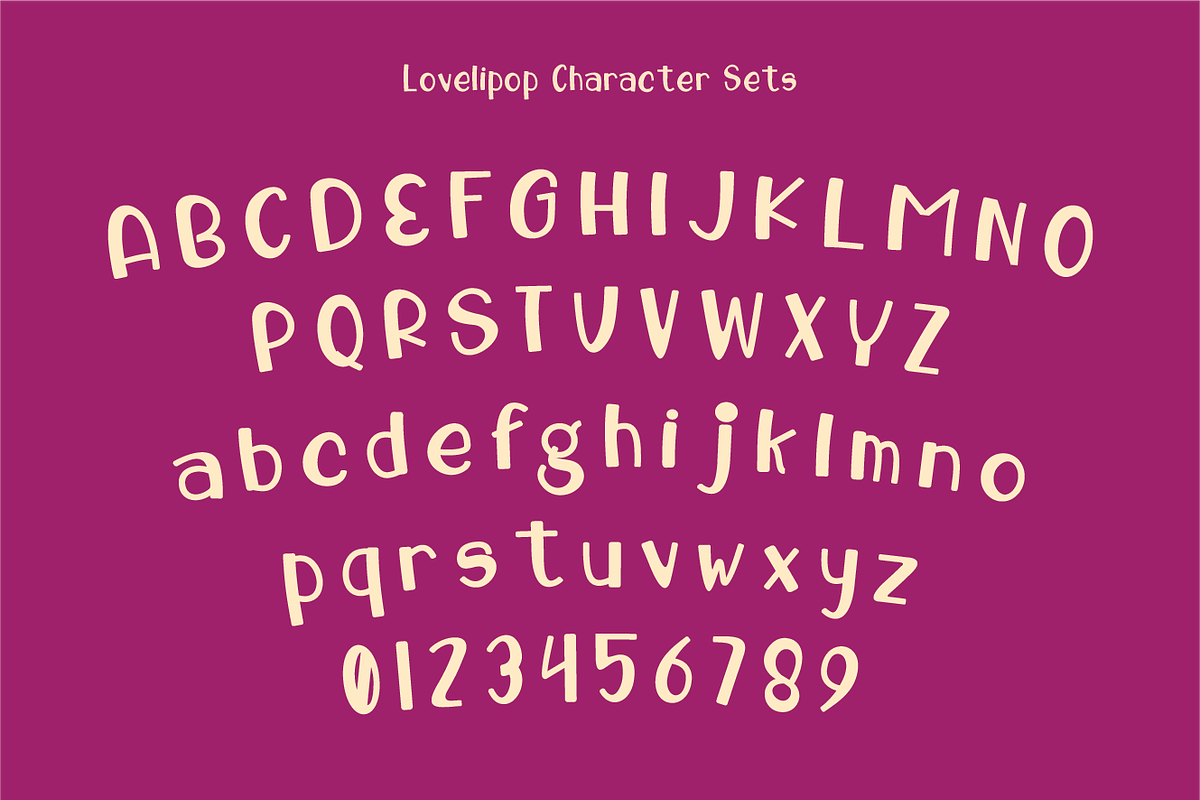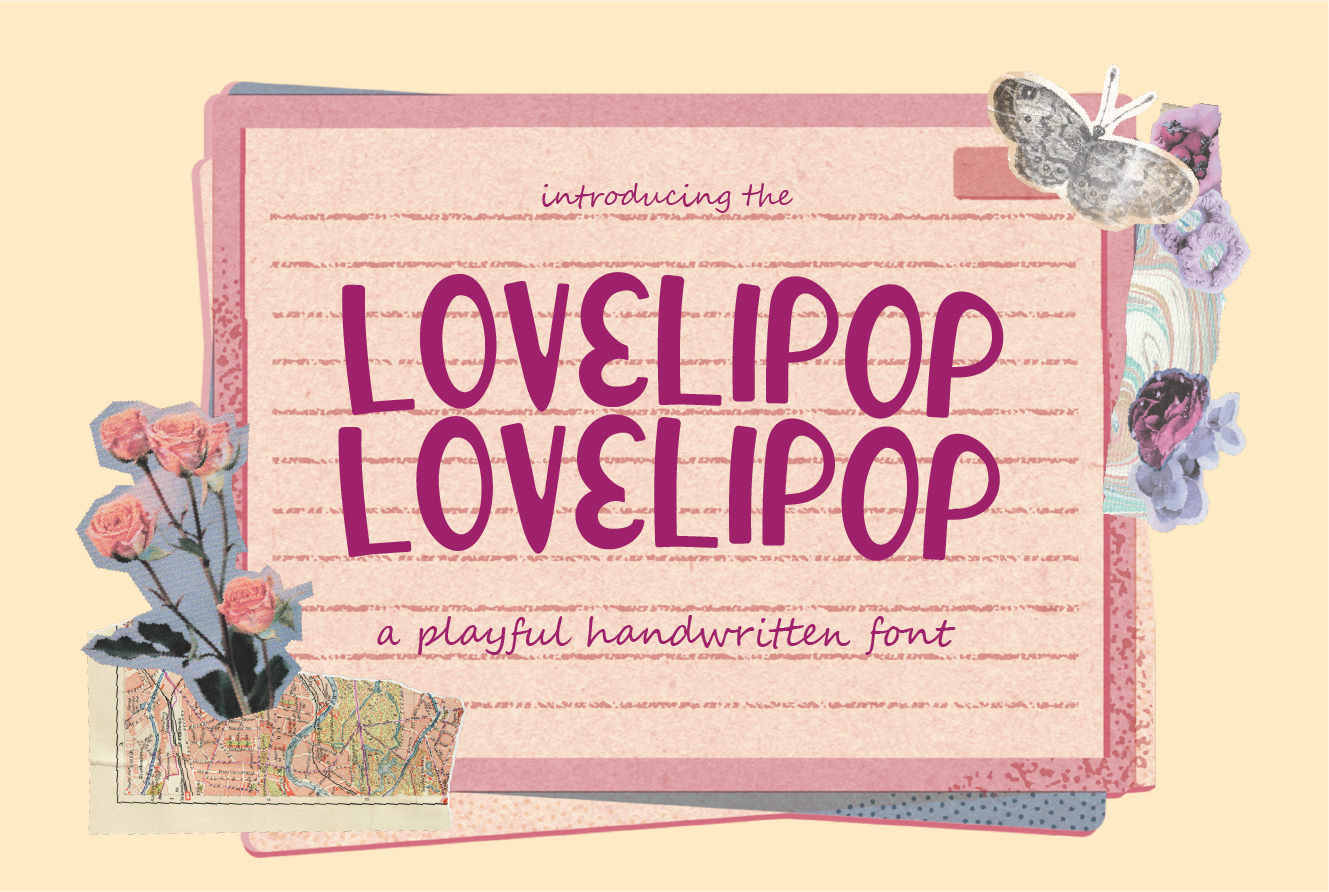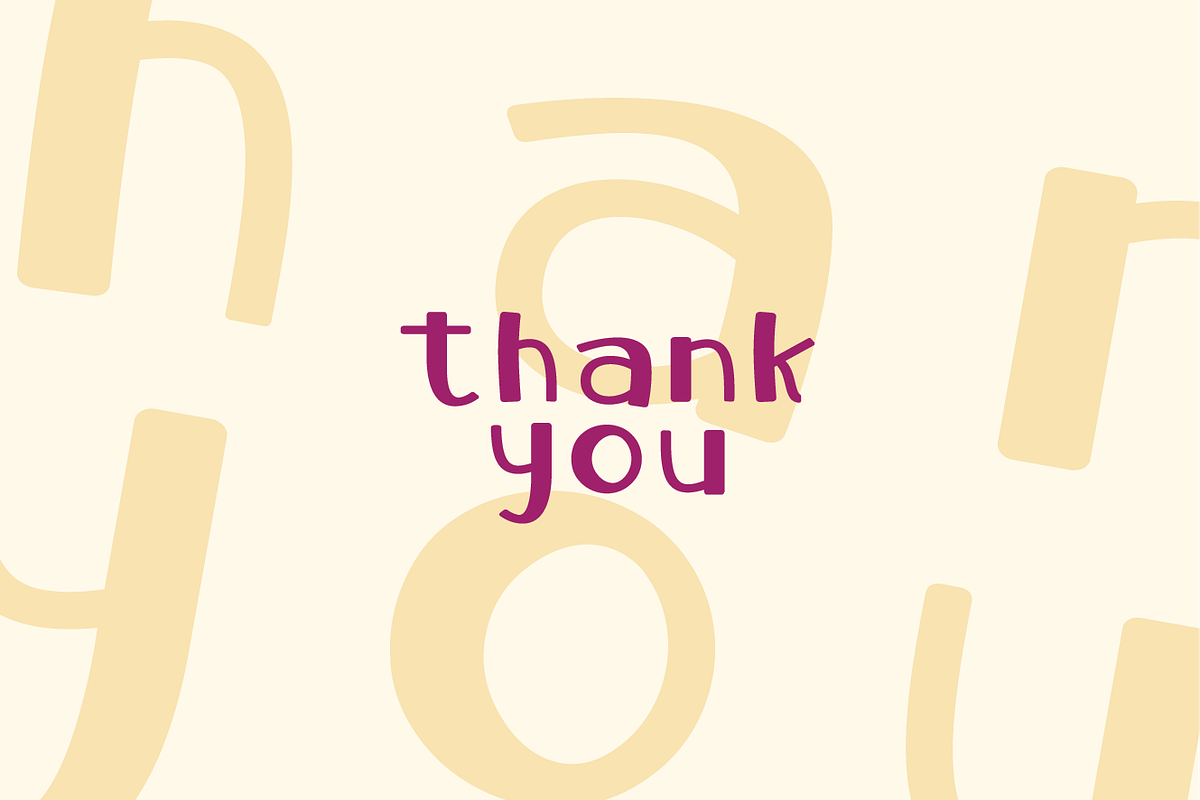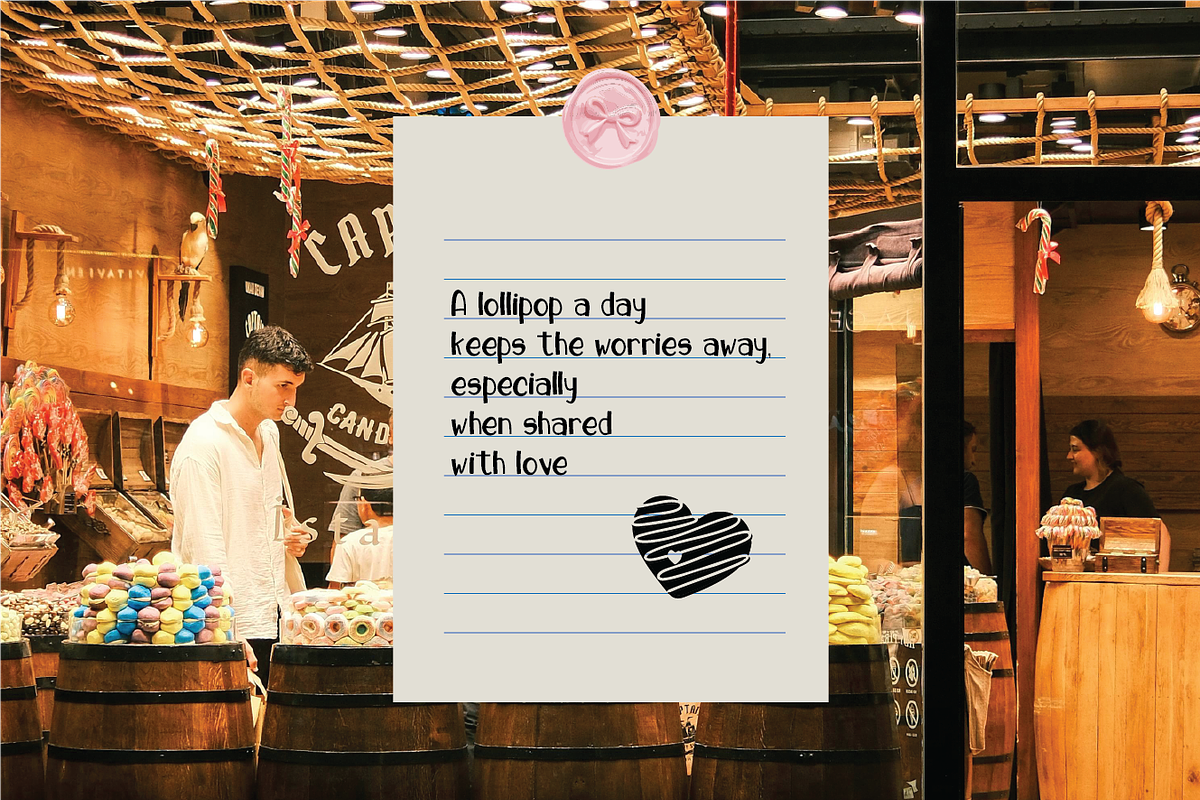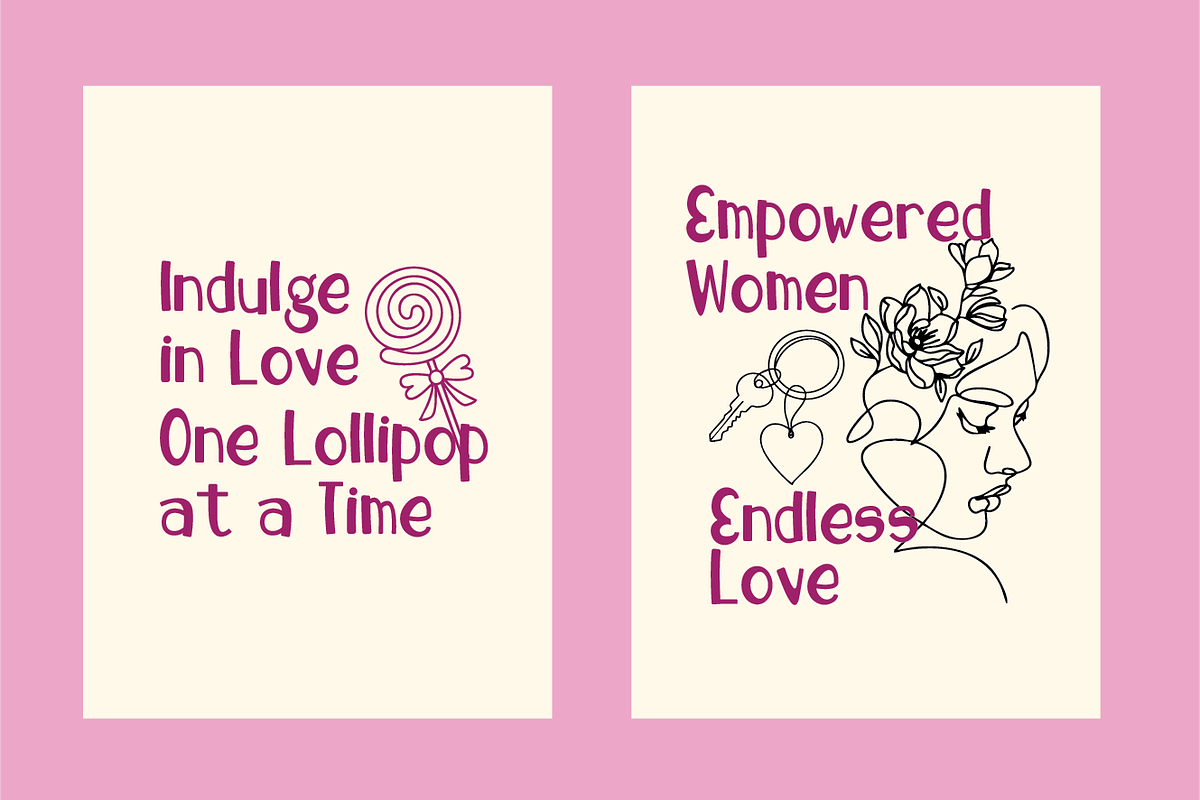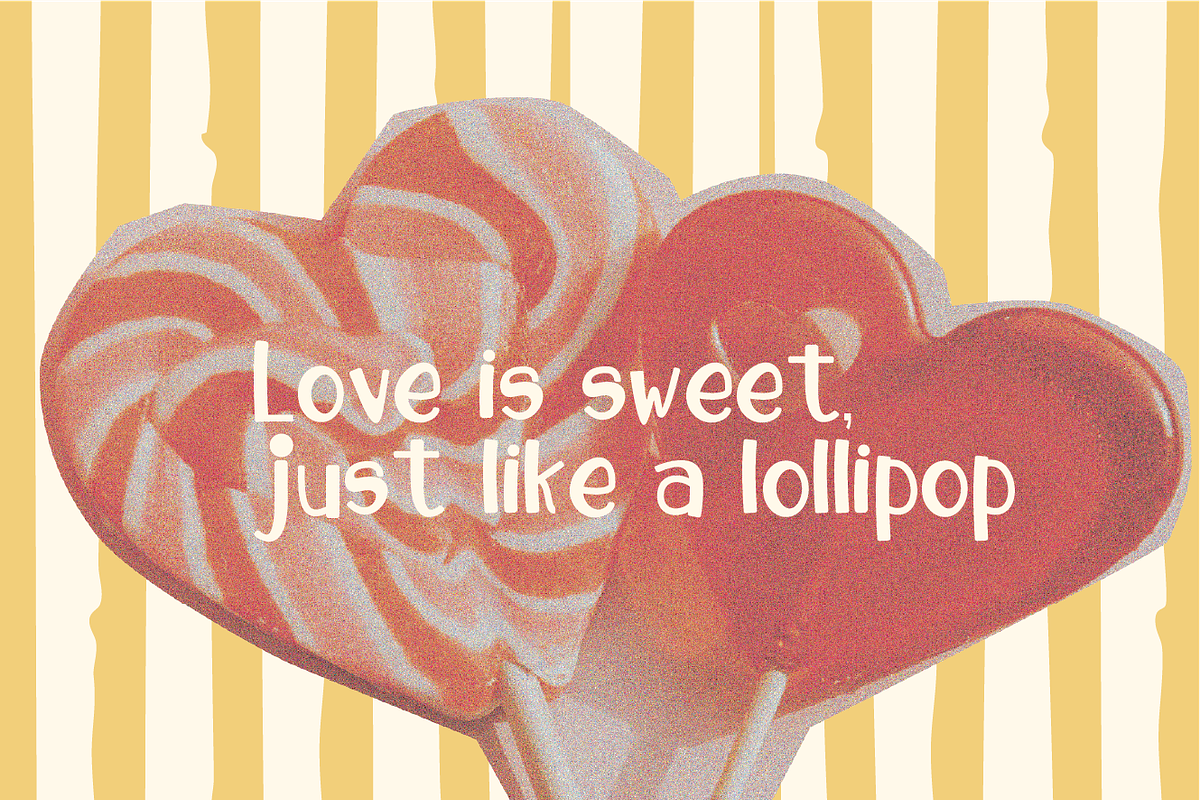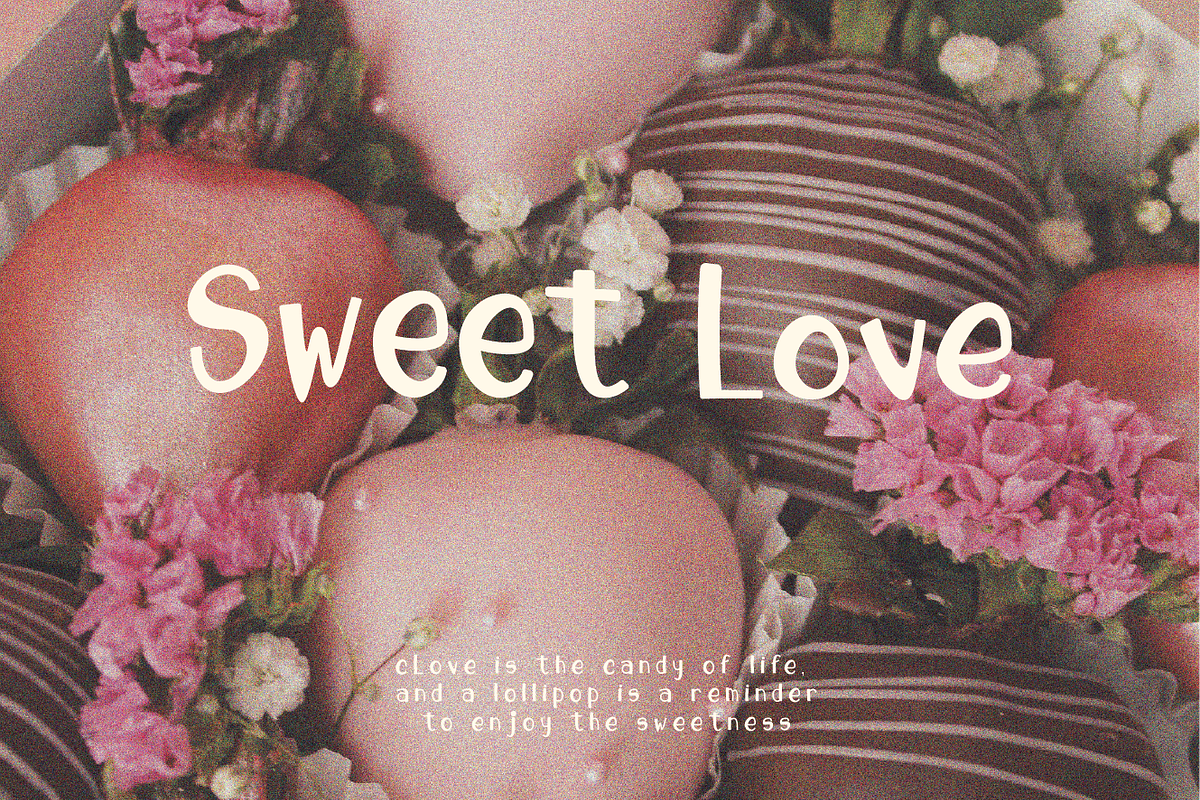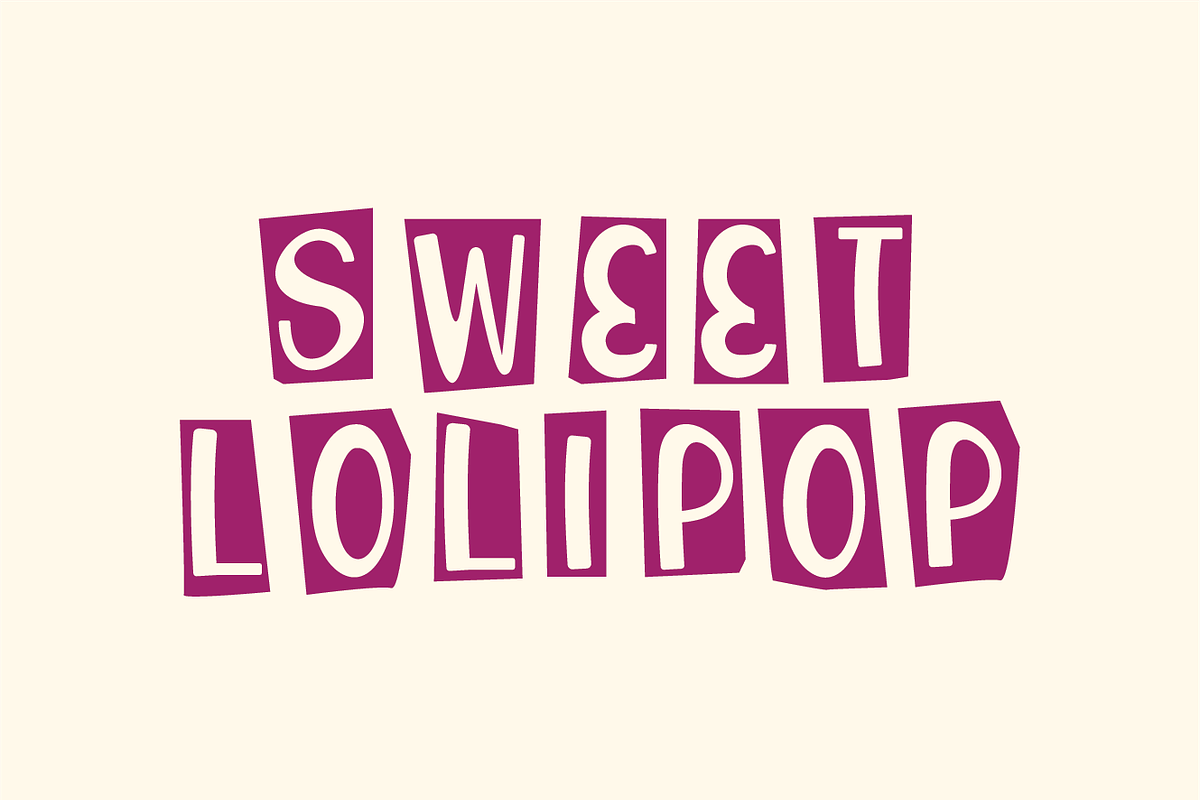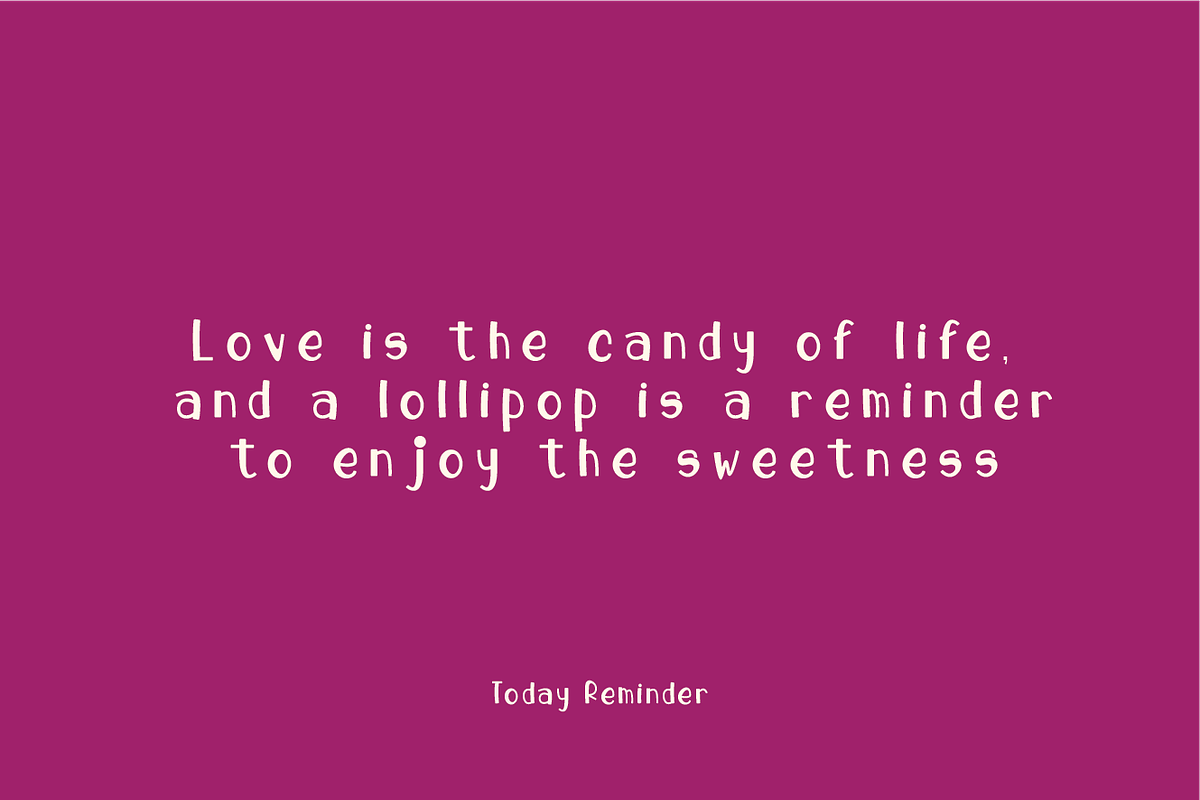
Lovelipop - Playful Font
Lovelipop The font has a fun, bold, and bubbly design with thick, rounded letterforms. The playful shapes and slightly uneven edges give it a hand-drawn, quirky vibe.